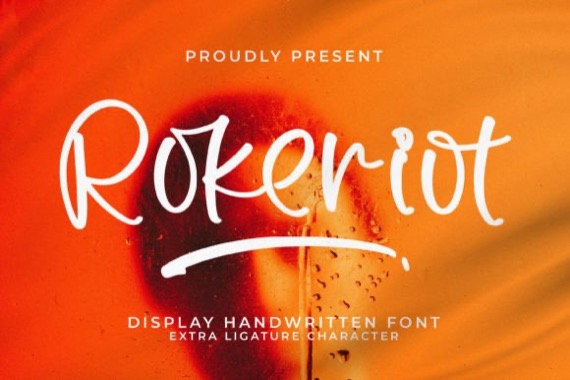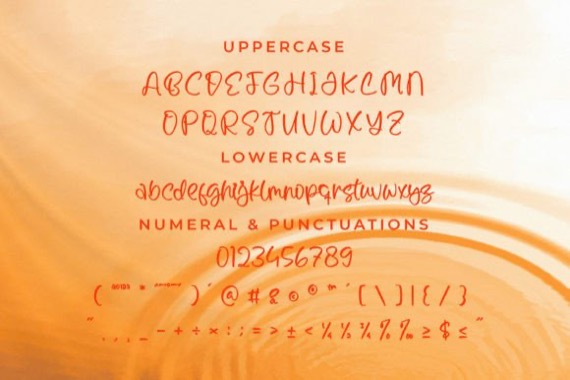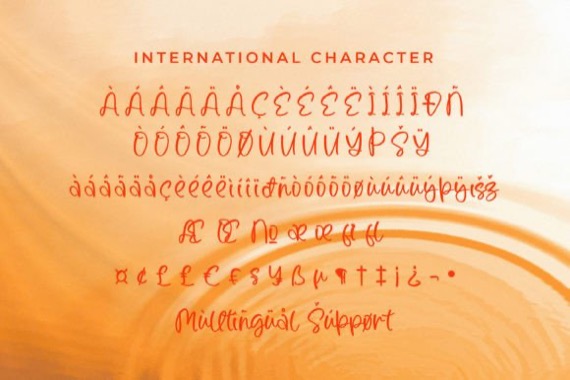
Introducing Rokeriot Script from Integritype Studio is an elegant handwritten font, perfect for any project such as logos, branding projects, homewares designs, product packaging, mugs, quotes, posters, shopping bags, t-shirts, covers books, business cards, invitation cards, greeting cards, labels, photography, watermarks, special events and all your other luxury projects that require a premium taste.
Rokeriot Handwritten script Font
Designer, Publisher: Integritype Studio